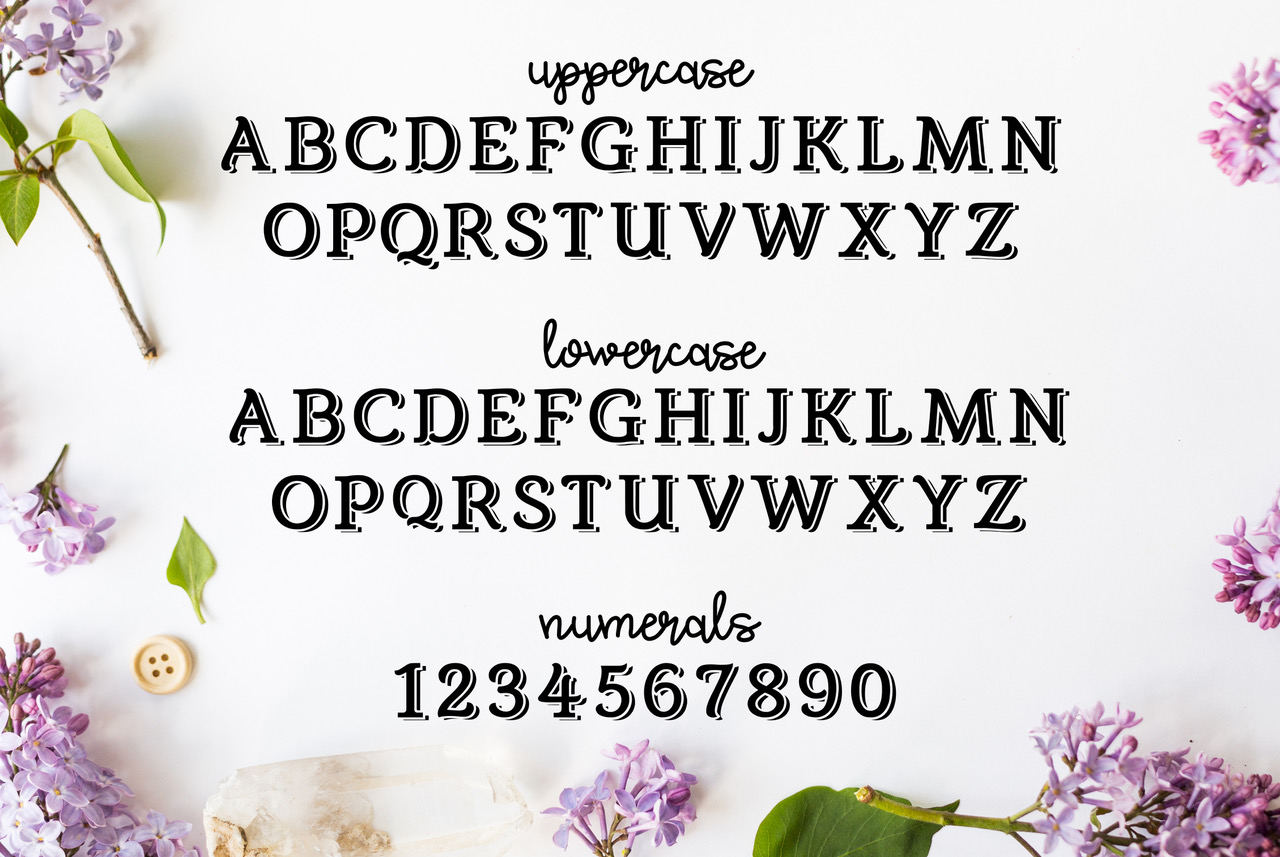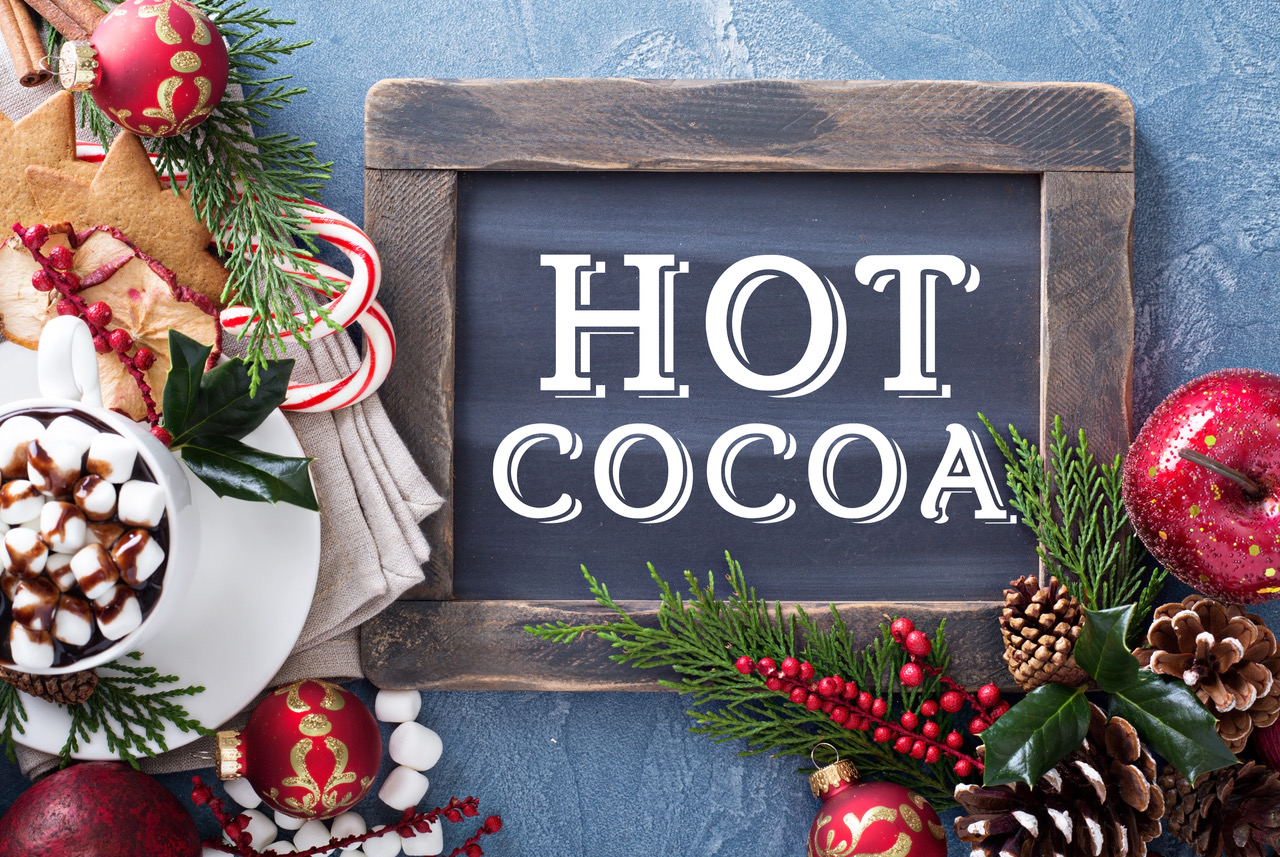
Introduction to Laundry Room Font
A smooth, slab serif shadow font perfect for displaying your designs.
This is a contemporary and fresh typeface Download this versatile, sleekly styled typeface.
Key Features of Laundry Room Font
Why Choose Laundry Room Font?
Laundry Room Font offers exceptional quality and versatility, making it a valuable addition to your design toolkit. Whether you’re creating for personal projects or commercial use, Laundry Room Font delivers professional results.